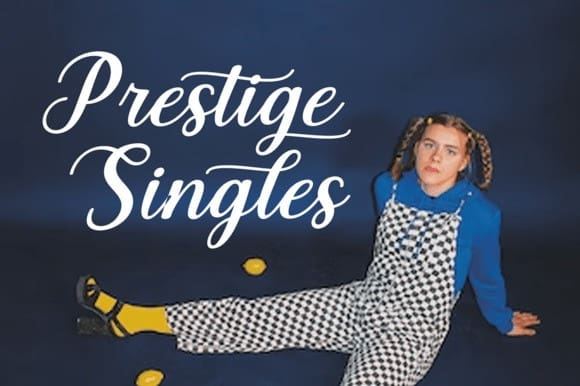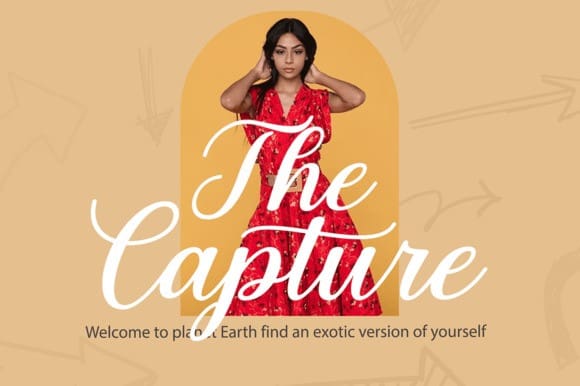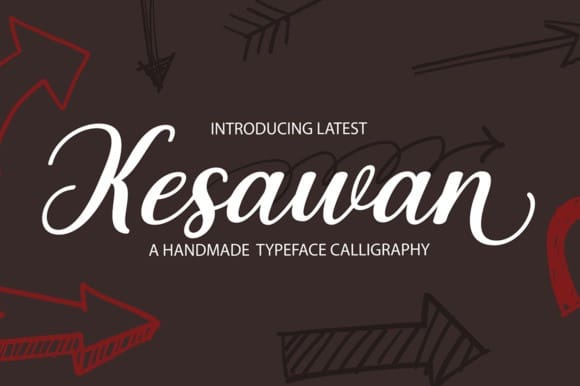
Kesawan Font
Kesawan Font is a stunning and stylish handwritten font that brings an air of sophistication to any project. With its graceful curves and flowing strokes, this font is perfect for branding, wedding invitations, and editorial design. Its unique style and timeless elegance create a sense of luxury and refinement. It is also PUA encoded which means you can access all of the glyphs and swashes with ease!